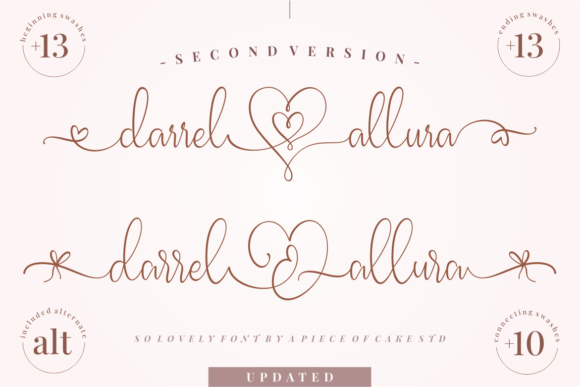
Behold, Darrel Allura Second, the enchanting script font that will bestow a touch of magic upon your creative endeavors. Its elegant curves and captivating swashes dance across the page, transforming words into works of art. Prepare to be mesmerized as this font elevates your designs to new heights of beauty and sophistication.
With Darrel Allura Second, you'll embark on a journey of limitless possibilities. Whether you're crafting social media posts that sparkle with personality or adding a touch of elegance to your DIY projects, this font is your steadfast companion. Its versatility knows no bounds, flowing effortlessly from whimsical invitations to captivating logos, and everything in between.
Unleash your imagination and let Darrel Allura Second take center stage. Its carefully crafted glyphs and swashes, accessible with ease thanks to PUA encoding, await your creative touch. Experience the joy of seamlessly incorporating stunning accents and flourishes into your designs.
Darrel Allura Second is more than just a font; it's an invitation to let your creativity soar. Its enchanting aura will cast a spell on your audience, captivating them with its undeniable charm. Prepare to witness your designs transformed into captivating masterpieces that leave an everlasting impression.
Step into a world where elegance and imagination intertwine. Darrel Allura Second awaits you, ready to ignite your creative spark and lead you on an artistic adventure like no other. Seize this opportunity to embrace a font that is truly a piece of art, a testament to the boundless power of creativity.